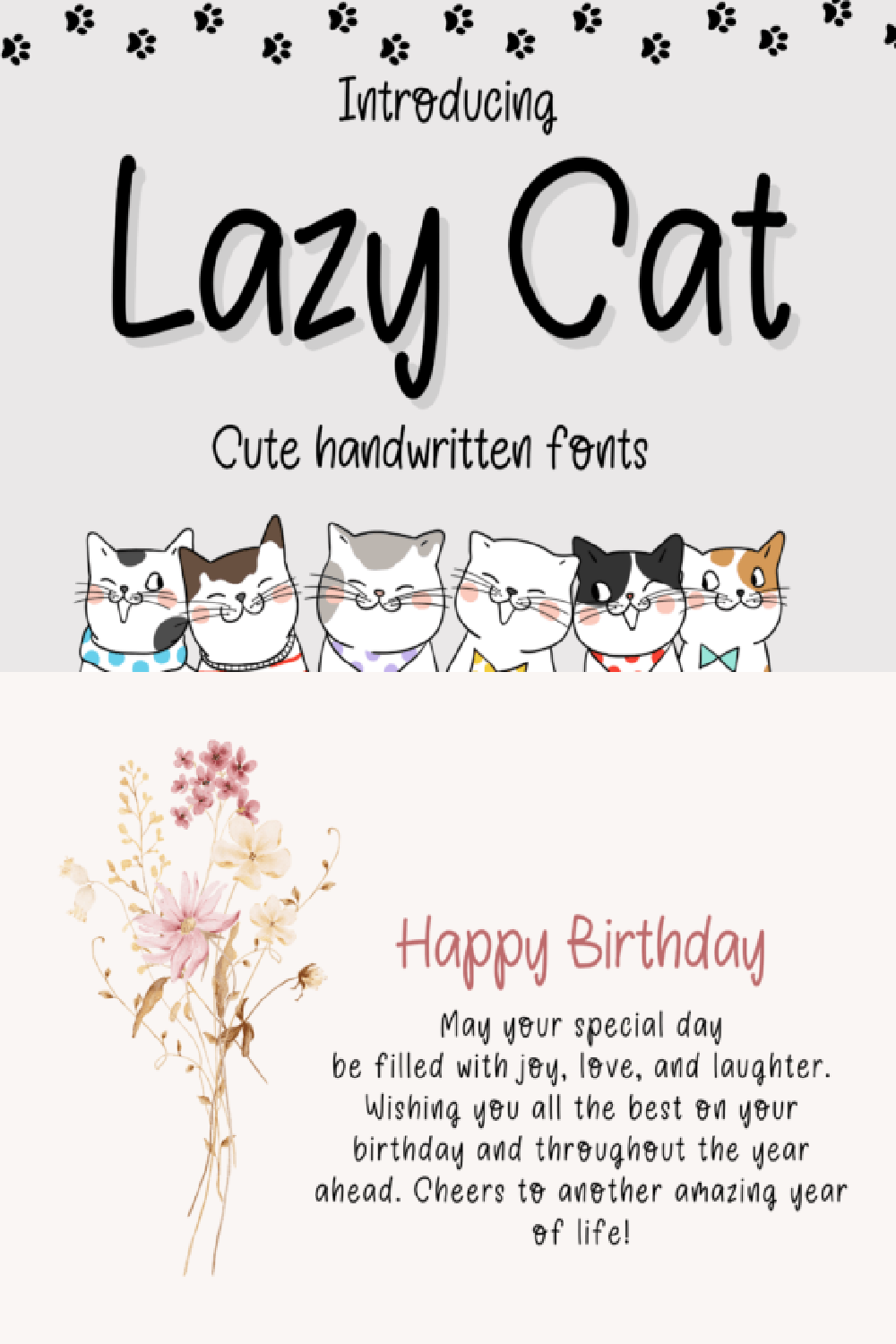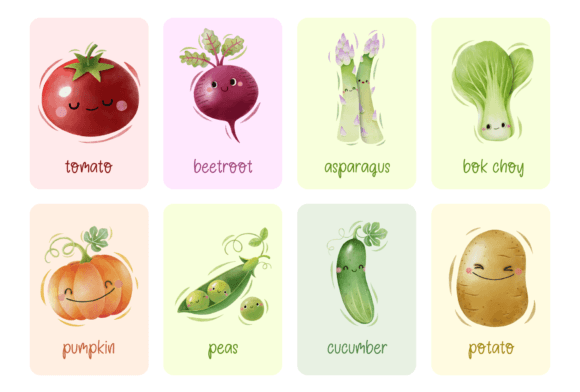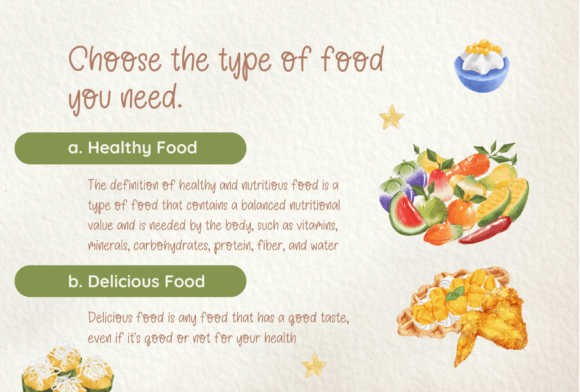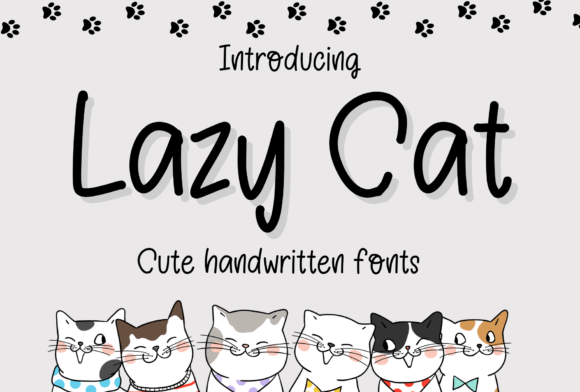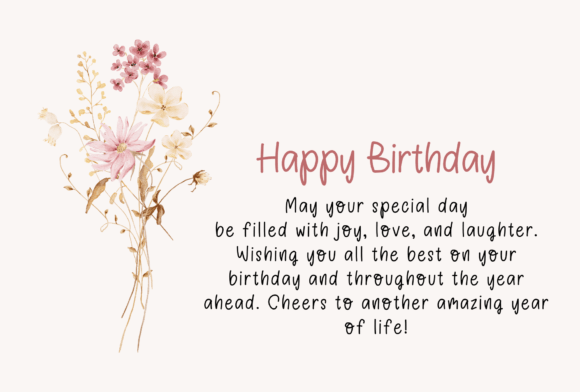
Lazy Cat Font: A Cute Handwritten Font for Playful Designs & Cricut Crafts
About the Lazy Cat Font
We are excited to introduce Lazy Cat Font, a must-have typeface for any serious designer. Welcome to the charming, whimsical world of the Lazy Cat font! This delightful typeface has been designed to inject an element of fun and playfulness into any project. Carefully crafted, Lazy Cat boasts adorable features that are certain to capture attention, making your creation not only unique but also incredibly engaging. It’s more than just a style – it’s an expression of joy and mischievous charm. Get lost in the delightful details of Lazy Cat and enjoy the subtle charm it adds to your design. This font is perfect for those who value creativity, novelty, and the unexpected.